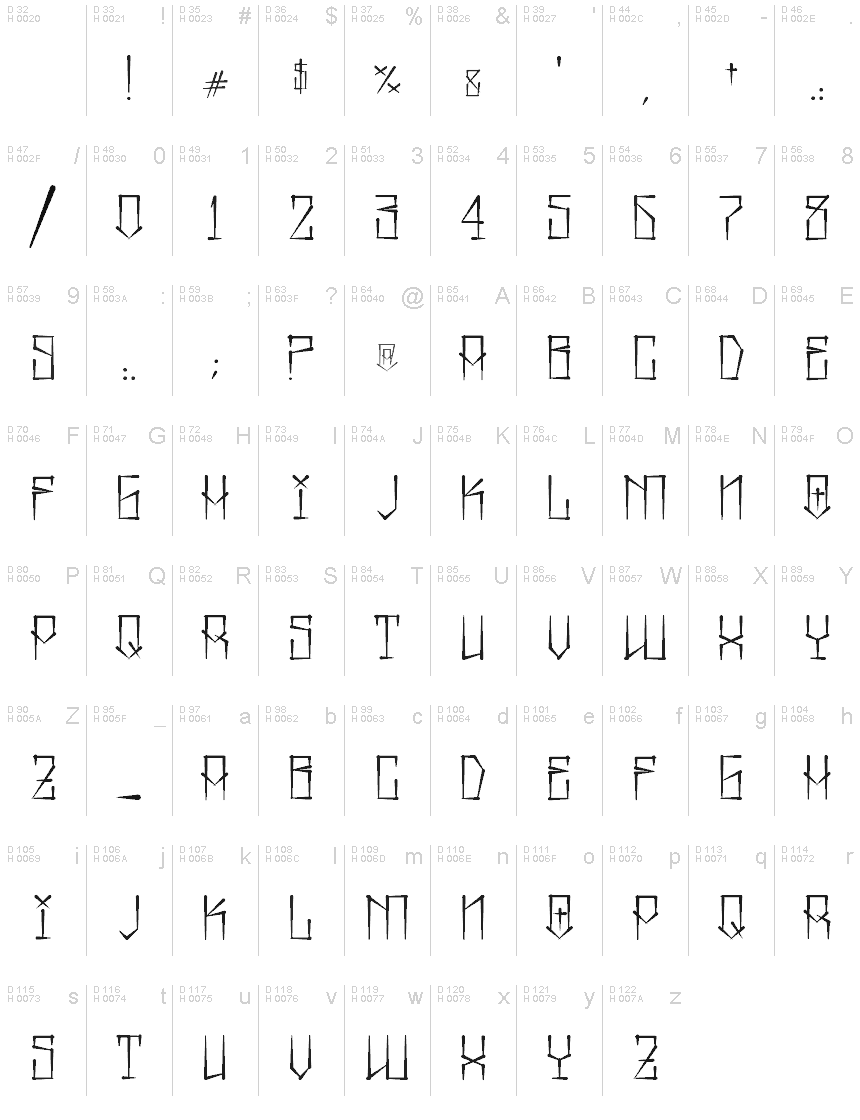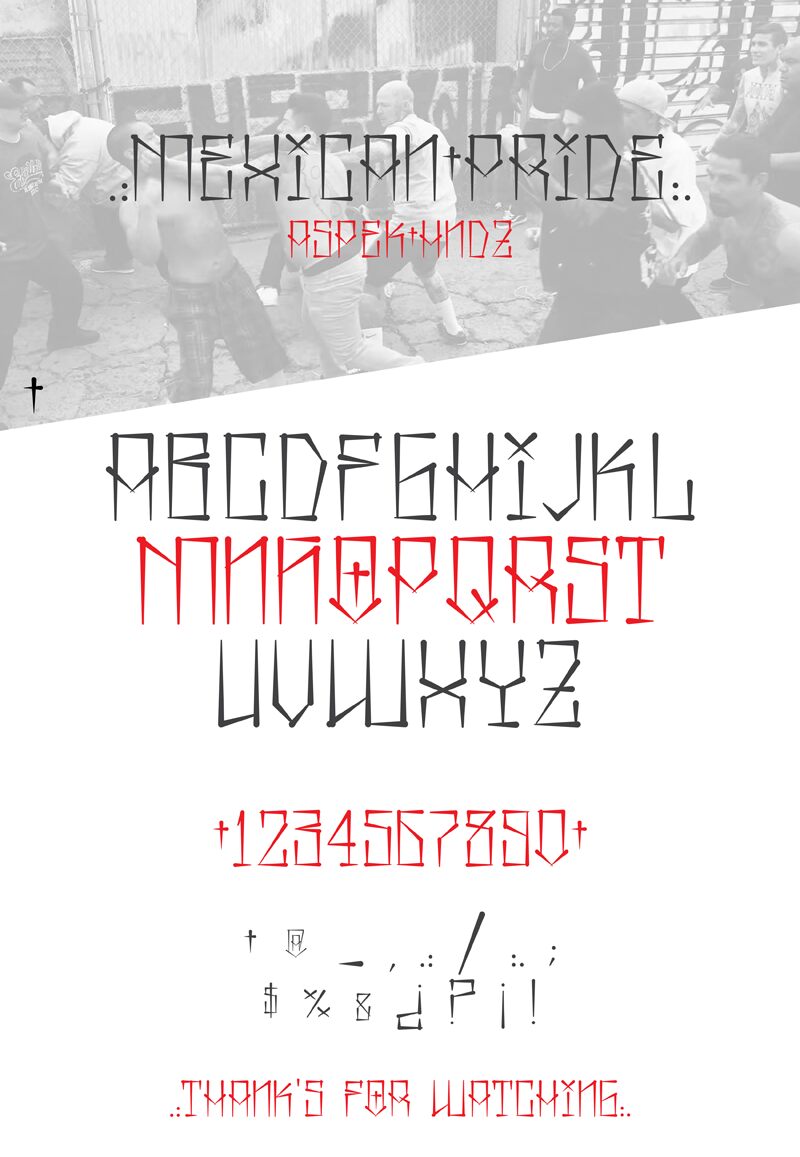
Mexican Pride Urban
Mexicon Pride is a striking graffiti-inspired font that exudes urban grit and unapologetic style. Designed by Aspek hndz, this condensed font showcases bold, angular letterforms that command attention. The distinctive mesh of sharp edges and organic textures gives Mexicon Pride a raw, authentic feel, making it a versatile choice for branding, packaging, and editorial layouts seeking a touch of edgy, contemporary flair. From hard-hitting headlines to impactful typographic treatments, this font's unique personality shines through, reflecting the vibrant energy of street culture.
Mexicon Pride's versatility extends beyond its visual appeal. Its condensed width allows for space-efficient typesetting, making it a practical option for a range of design applications, from posters and t-shirt graphics to digital interfaces and signage. Whether you're crafting a modern logo, designing a gritty album cover, or seeking to infuse your project with a sense of urban authenticity, Mexicon Pride offers a compelling solution that captivates the eye and resonates with audiences.